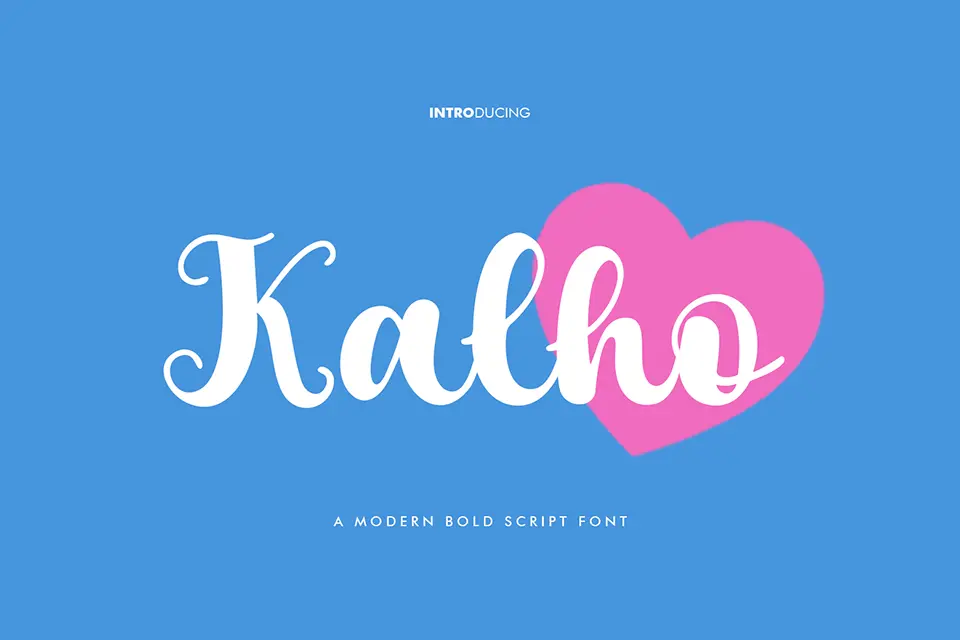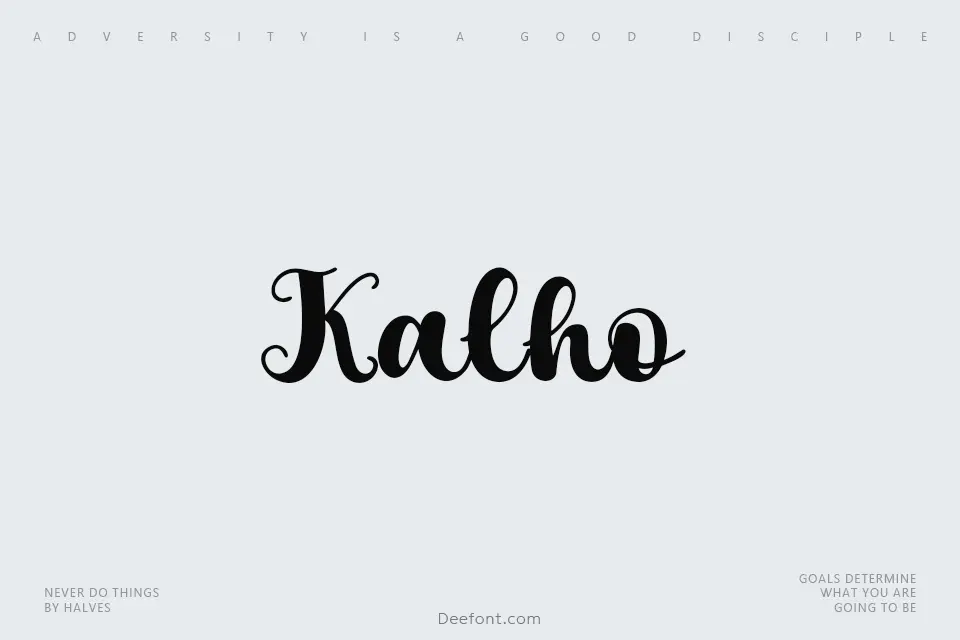
Kalho Font
Kalho Font is a modern and cute script typeface perfect for posters, logos, magazines, book covers, banners, and many more! Get this amazing font, and use it to create lovely designs. It can easily be matched to an incredibly large set of projects, so add it to your creative ideas and notice how it makes them stand out!